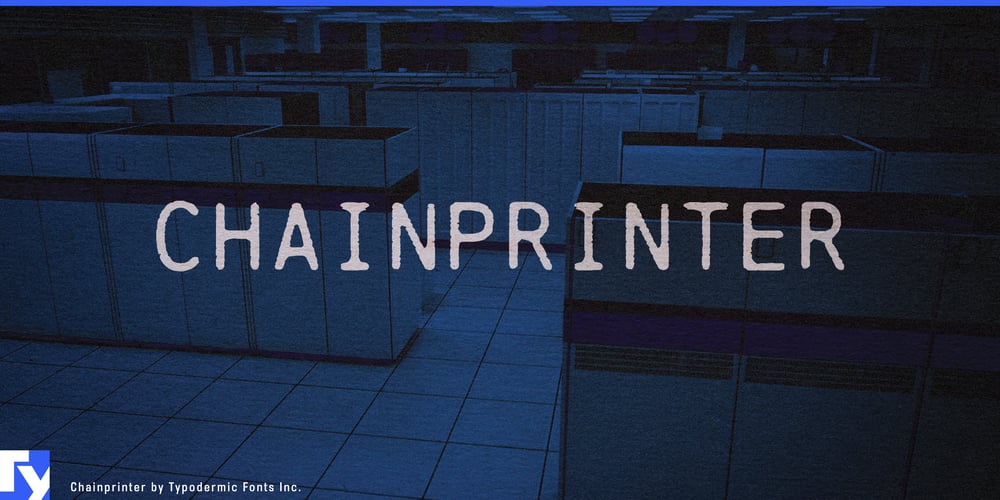
Chainprinter Font Family was designed by Ray Larabie and published by Typodermic. Chainprinter contains 1 styles and family package options. Step into the electrifying world of vintage computing with Chainprinter, a typeface that captures the raw essence of early digital innovation. This all-caps font pays homage to the mighty chainprinter—a marvel of 1960s engineering that sliced through paper with the ferocity of its namesake, leaving an indelible mark on the history of technology.Chainprinter isn’t just a font; it’s a time machine. Each character pulsates with the energy of an era when computers filled entire rooms and the hum of machinery was the soundtrack of progress. The typeface’s unique texture faithfully recreates the distinctive output of these pioneering devices, giving your designs an authentic touch of retro-tech nostalgia.Harness Chainprinter’s power to craft visuals that command attention. Whether you’re designing posters that echo the aesthetic of early computer readouts, creating album artwork for synthwave musicians, or adding a touch of vintage charm to modern branding, Chainprinter delivers with unparalleled authenticity. For those projects requiring a more refined touch, consider pairing Chainprinter with its sleeker sibling, Linefeed—another gem in the Typodermic collection that offers a contemporary twist on this classic style.Chainprinter’s versatility extends beyond its visual impact. This font speaks the language of innovation across borders, supporting an extensive array of Latin-based writing systems. From the tech hubs of Silicon Valley to the emerging digital landscapes of Eastern Europe, Chainprinter ensures your message retains its cutting-edge feel in dozens of languages. It’s equally at home in a Finnish tech startup’s pitch deck as it is in a Portuguese retrocomputing magazine.In a digital landscape oversaturated with sleek, minimalist designs, Chainprinter stands out as a bold declaration of technological heritage. It’s more than a typeface—it’s a tribute to the pioneers who laid the foundation for our digital age. So why settle for the mundane when you can infuse your projects with the raw, unapologetic spirit of early computing? Embrace Chainprinter and watch as your designs come alive with the pulse of vintage technology, each character a testament to the relentless march of innovation.